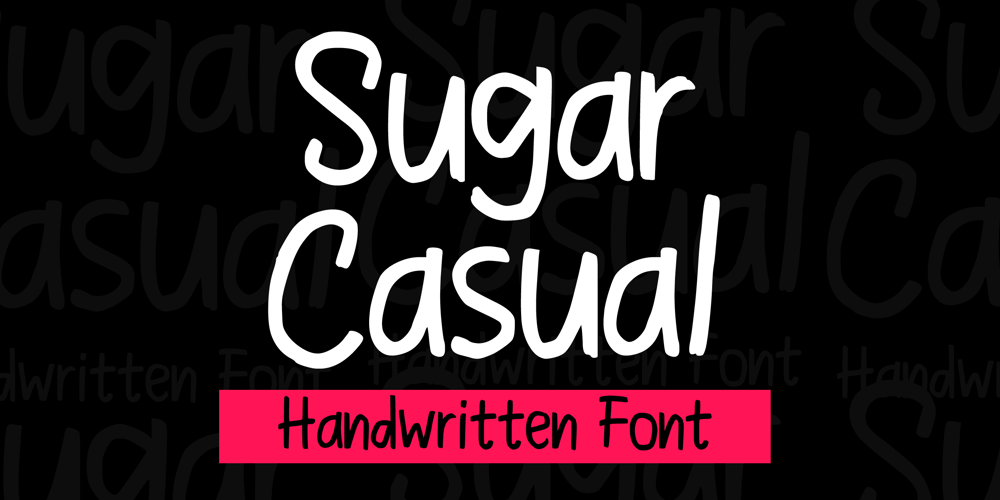
Sugar Casual Font Family was designed by Gabriel Valentinus and published by Mvmet. Sugar Casual contains 1 styles and family package options. Sugar Casual is a fun and cool spontaneus handwritten font. It will elevate a wide range of design projects to the highest level. You can use this font for many design ideas such as stickers, t-shirt designs, amazing logo designs, magazine or book covers, comics, cartoon drawings, and many more. This font will add a cool touch to your designs!